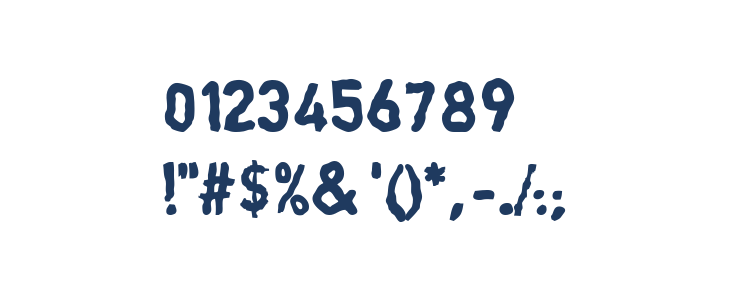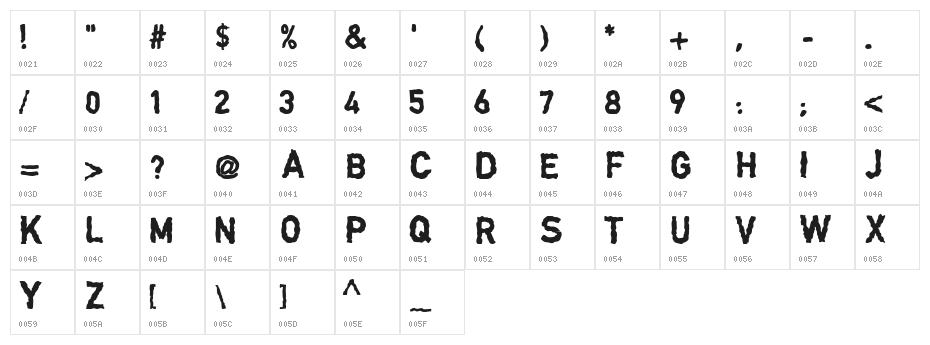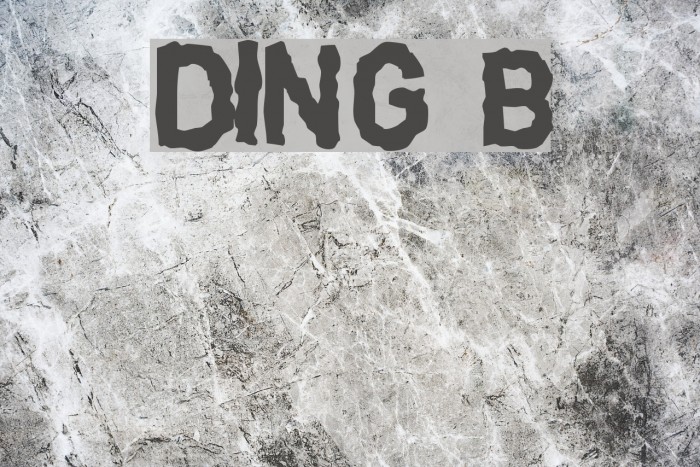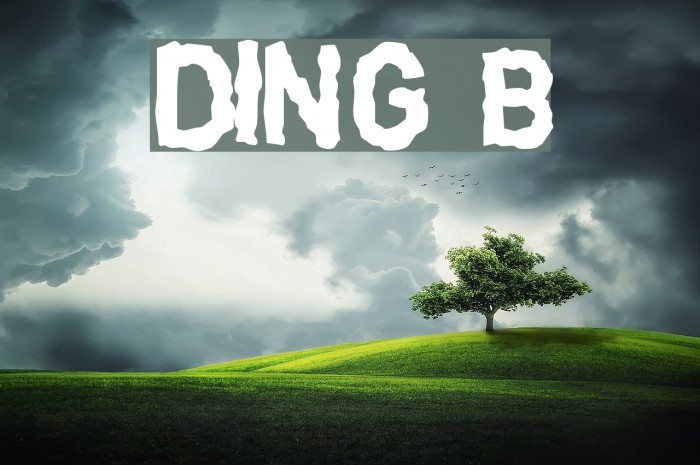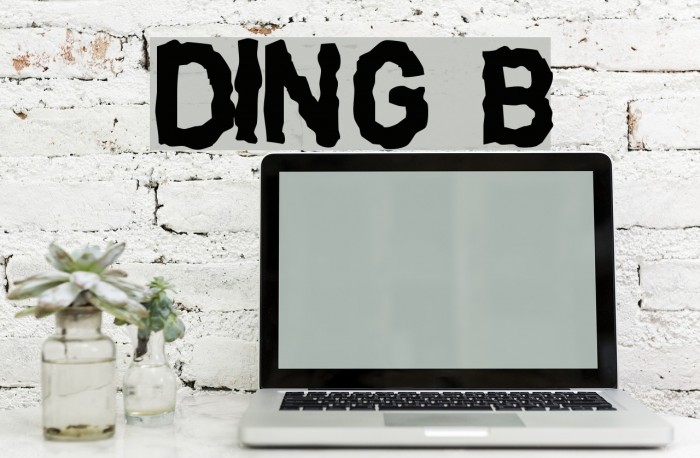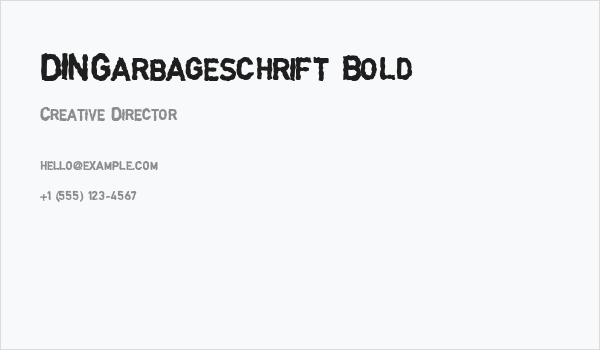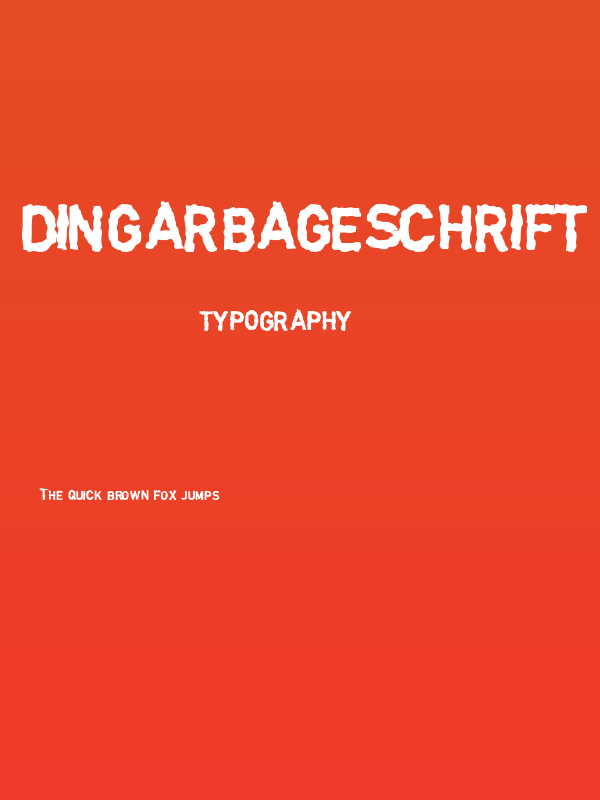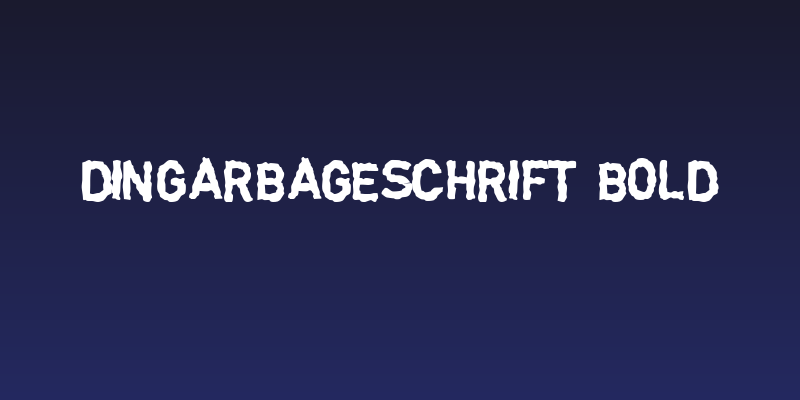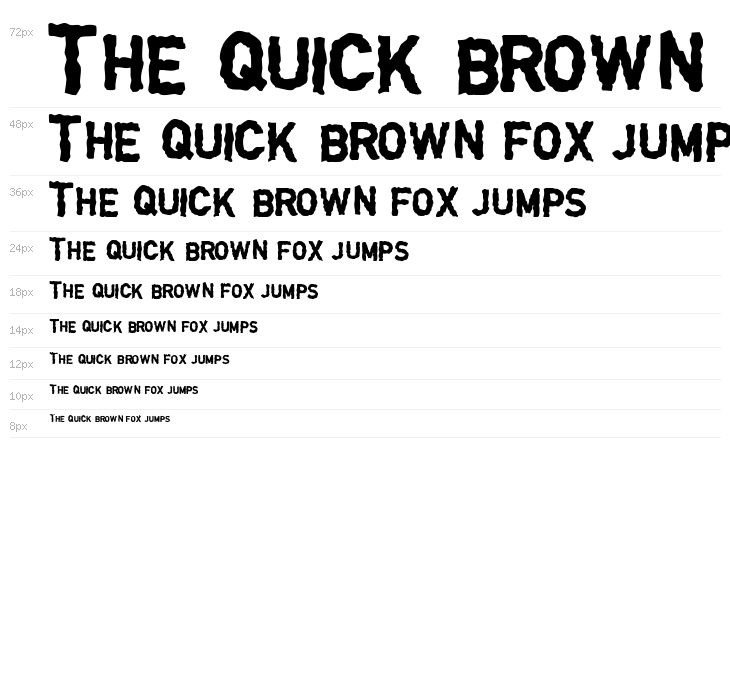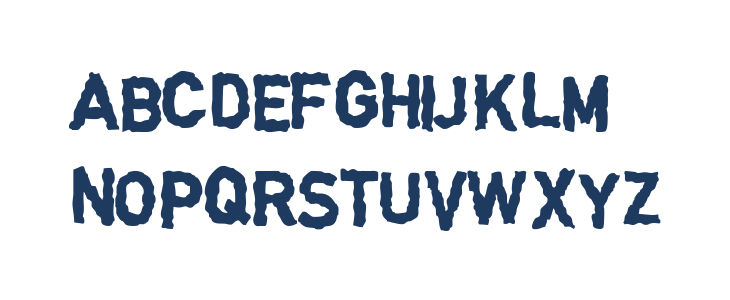
DINGarbageschrift Bold Font
DINGarbageschrift Bold Description
This font exhibits a bold and rugged appearance, characterized by its irregular, jagged edges and a hand-drawn aesthetic. The letters are thick and substantial, giving a strong visual impact. The style is reminiscent of graffiti or distressed textures, making it stand out with its unique, artistic flair. The uppercase and lowercase letters maintain a consistent weight, while the numbers and special characters follow the same bold and textured style. This font is ideal for projects that require a raw, edgy look, such as posters, album covers, or urban-themed designs.
| Proposed Projects | Ideal for posters, album covers, urban-themed designs, and any project needing an edgy, artistic touch. |